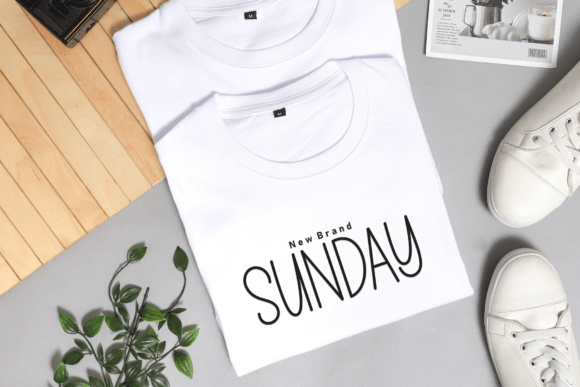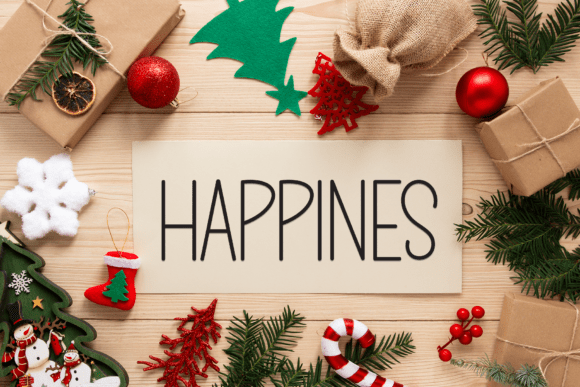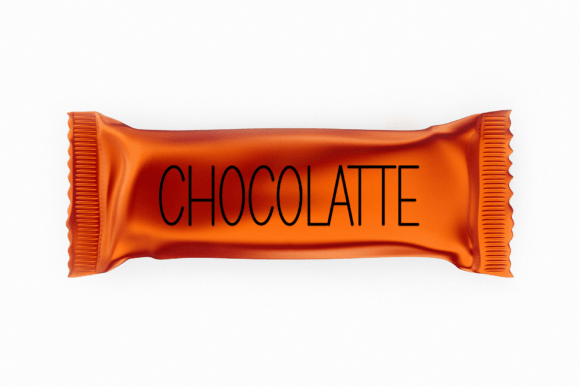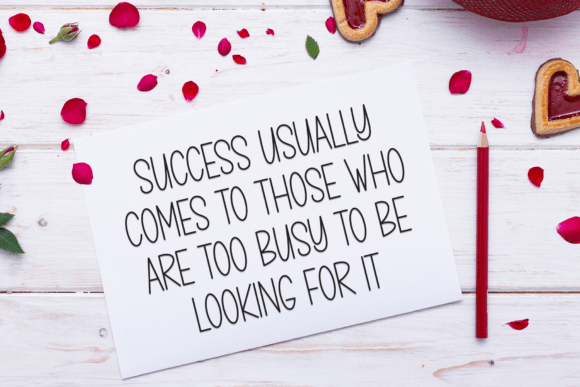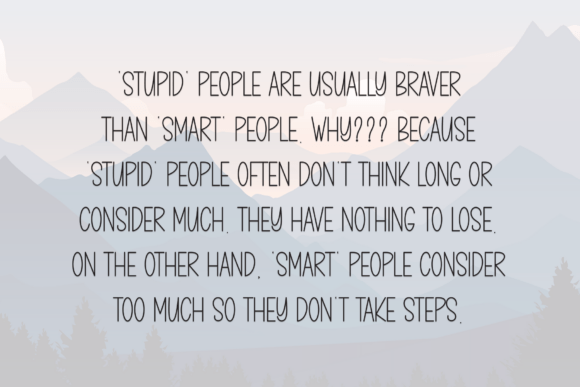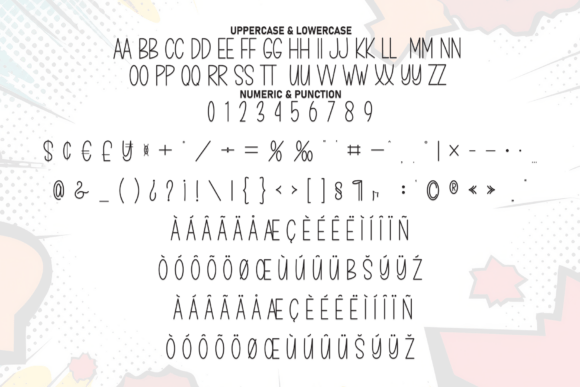
Introducing Comic Cartoon Font: The Perfect Blend of Simplicity and Friendliness
In the world of typography, fonts play a crucial role in conveying the tone and personality of a brand or design. For designers and crafters looking for a font that combines simplicity with a friendly, approachable vibe, Comic Cartoon Font is an excellent choice. This casual and neat display font is designed to capture the essence of modern handwritten typography with a polished finish, making it ideal for a wide range of applications.
What Makes Comic Cartoon Font Stand Out?
Comic Cartoon Font boasts clean lines, balanced letterforms, and subtle rounded edges that give it a unique and charming appearance. The font’s crisp structure and versatile style make it perfect for use in branding, headlines, packaging, and digital content. Whether you’re looking to add a warm and inviting touch to your design or create a bold statement, Comic Cartoon Font delivers clarity and charm in equal measure.
Key Features of Comic Cartoon Font
- Clean Lines and Balanced Letterforms: The font’s clean lines and balanced letterforms ensure that it remains highly legible, even at smaller sizes.
- Subtle Rounded Edges: The subtle rounded edges give the font a friendly and approachable feel, making it perfect for designs that require a personal touch.
- Versatile Style: Comic Cartoon Font is versatile enough to be used in a wide range of applications, from branding and headlines to packaging and digital content.
- Polished Finish: The font’s polished finish gives it a modern and sophisticated look that’s sure to impress.
Why Choose Comic Cartoon Font?
There are many reasons why designers and crafters should consider using Comic Cartoon Font in their designs. Here are just a few:
- Easy to Read: The font’s clean lines and balanced letterforms make it easy to read, even at smaller sizes.
- Highly Versatile: Comic Cartoon Font can be used in a wide range of applications, making it a great addition to any designer’s toolkit.
- Unique and Charming: The font’s subtle rounded edges and polished finish give it a unique and charming appearance that’s sure to stand out.
- Perfect for Branding: Comic Cartoon Font is ideal for branding, as it adds a warm and inviting touch to any design.
How to Use Comic Cartoon Font in Your Designs
Comic Cartoon Font is easy to use and can be incorporated into a wide range of designs. Here are a few ideas to get you started:
- Branding: Use Comic Cartoon Font as a logo or title font to add a warm and inviting touch to your brand.
- Headlines: Use the font as a headline font to add a bold and eye-catching element to your design.
- Packaging: Use Comic Cartoon Font on packaging to add a personal touch and make your product stand out.
- Digital Content: Use the font in digital content, such as blog posts and social media graphics, to add a unique and charming element to your design.
In conclusion, Comic Cartoon Font is a versatile and charming display font that’s perfect for designers and crafters looking to add a warm and inviting touch to their designs. With its clean lines, balanced letterforms, and subtle rounded edges, this font is sure to stand out in any design. Whether you’re looking to create a bold statement or add a personal touch, Comic Cartoon Font is an excellent choice.